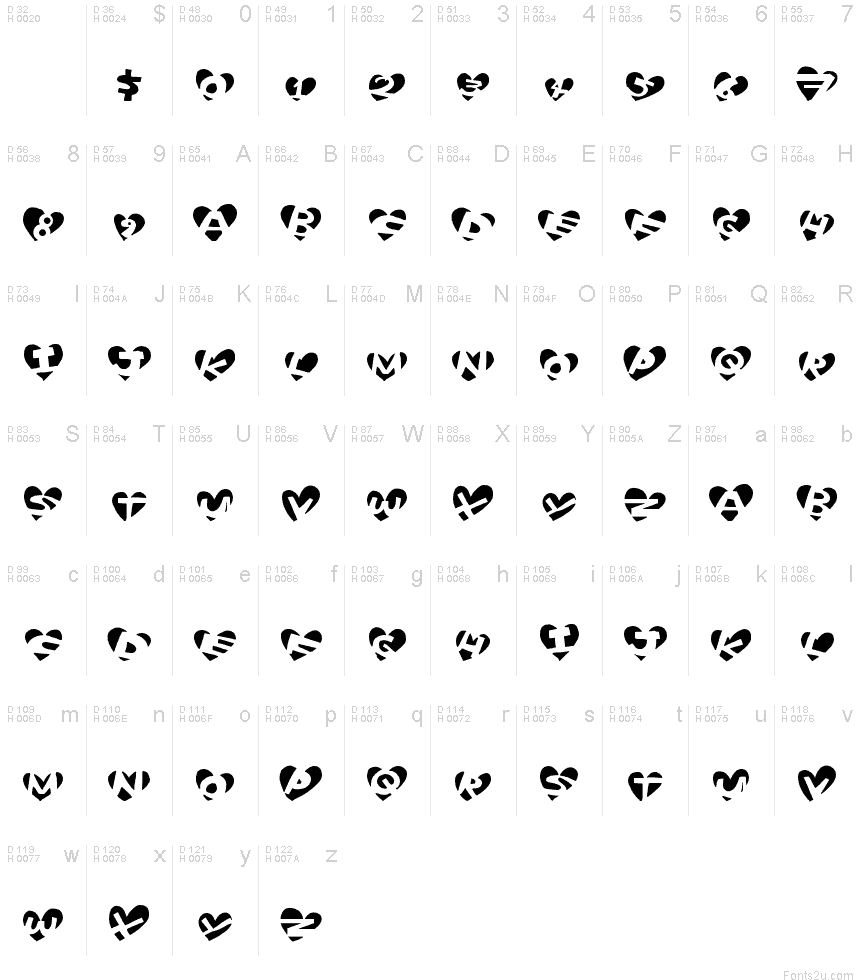
Heart Baller from Xerographer Fonts is a free Valentine display font with broad, irregular letters that break into sharp wedges and rounded, petal-like pieces. Its scattered silhouettes feel like paper cutouts in motion.
It can give candy packaging and party posters a lively romantic theme, but the same jagged construction also suits album artwork and club flyers with a more unruly edge. Across both settings, the broken heart-like shapes connect the lettering to romance, celebration, and pop graphics rather than formal wedding style.